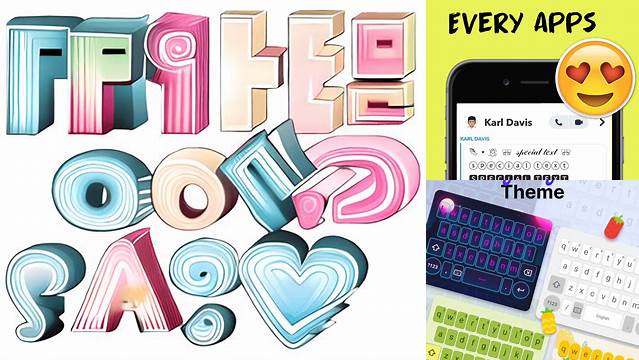
Cool Fonts Keyboard: Free Art Fonts For Chat
Are you tired of the same old boring fonts on your phone or computer? Do you want to add a personal touch to your messages, social media posts, and creative projects? If so, then you've come to the right place! In this article, we're going to dive deep into the world of free fonts keyboard apps and explore how you can use them to express yourself in unique and exciting ways. We'll cover everything from finding the best cool fonts for chat to using them effectively in your daily communications. So, buckle up and get ready to unleash your inner font enthusiast!
Why Use Cool Fonts for Chat?
Let's face it, the default fonts on most devices are pretty bland. They get the job done, but they don't exactly scream personality. That's where cool fonts for chat come in. Using a stylish or unique font can instantly elevate your messages, making them more engaging and expressive. Think about it: a simple "Hello!" can become a vibrant greeting with a playful script font, or a serious message can carry more weight with a bold, modern typeface. The possibilities are endless!
Expressing Your Personality Through Fonts
Fonts are like a visual extension of your personality. The font you choose can say a lot about you, your style, and your mood. Are you feeling fun and whimsical? Try a handwritten font with lots of swirls and loops. Are you going for a sleek and professional look? A clean sans-serif font might be the perfect choice. By experimenting with different fonts, you can find the ones that truly resonate with you and use them to create a consistent visual identity across your communications.
Making Your Messages Stand Out
In today's digital world, we're constantly bombarded with information. It can be tough to make your messages stand out from the crowd. Using cool fonts for chat is a simple yet effective way to grab attention and make your words more memorable. Imagine scrolling through a group chat and seeing a message written in a bold, eye-catching font – it's sure to catch your eye! This is especially useful for important announcements, special occasions, or just when you want to add a little pizzazz to your conversations.
Boosting Your Creativity
Using different fonts can also spark your creativity. When you're not limited to the same old fonts, you're free to experiment and explore new ways of expressing yourself. This can be particularly beneficial for creative projects like graphic design, social media content creation, or even just writing emails. A fresh font can inspire you to think differently and come up with new ideas.
Finding the Best Free Fonts Keyboard App
Okay, so you're convinced that cool fonts for chat are the way to go. But where do you find them? Luckily, there are tons of free fonts keyboard apps available for both iOS and Android devices. The key is to find one that offers a wide variety of fonts, is easy to use, and doesn't bombard you with ads or in-app purchases.
Key Features to Look For
When choosing a free fonts keyboard app, here are some essential features to keep in mind:
- Font Variety: The more fonts, the merrier! Look for an app that offers a diverse selection of fonts, including script fonts, sans-serif fonts, decorative fonts, and more. This will give you plenty of options to choose from and allow you to find the perfect font for any occasion.
- Ease of Use: A good fonts keyboard app should be easy to install, set up, and use. The font selection process should be intuitive, and it should be simple to switch between different fonts while typing. Nobody wants to spend hours trying to figure out how to use a new app, so opt for one that's user-friendly.
- Compatibility: Make sure the app you choose is compatible with the apps you use most often, such as messaging apps, social media apps, and email clients. Some fonts keyboard apps may not work with all apps, so it's important to check compatibility before downloading.
- Customization Options: Some fonts keyboard apps offer additional customization options, such as the ability to adjust font size, color, and spacing. These features can be helpful if you want to fine-tune the appearance of your text.
- Free vs. Paid: While there are many excellent free fonts keyboard apps available, some apps offer premium features or fonts for a fee. Consider whether you need these extra features before opting for a paid app. In many cases, a free app will provide everything you need.
Popular Free Fonts Keyboard Apps
To get you started, here are a few popular free fonts keyboard apps that are worth checking out:
- Fonts Keyboard: This app is a classic choice, offering a wide variety of stylish fonts and a user-friendly interface. It's compatible with most apps and allows you to customize your fonts in various ways.
- Cool Fonts: As the name suggests, this app is all about cool fonts for chat. It features a constantly updated library of fonts, including trendy and unique options that you won't find anywhere else.